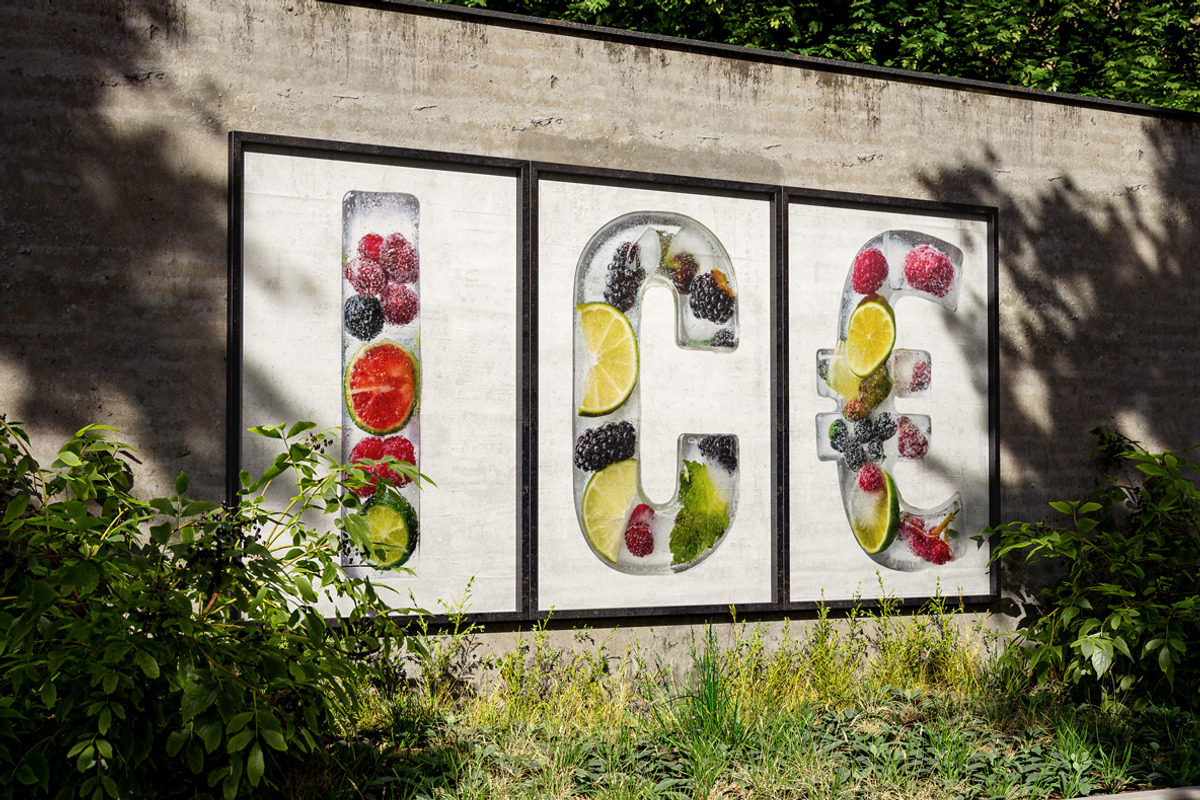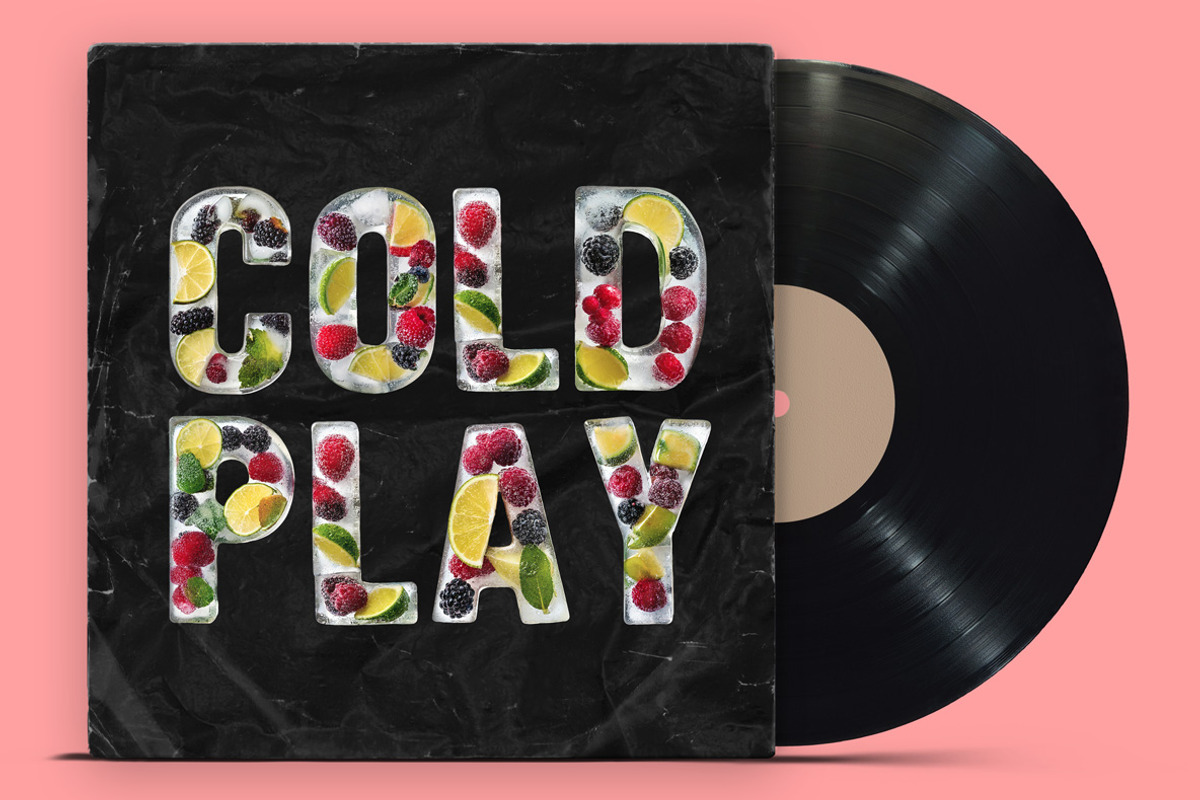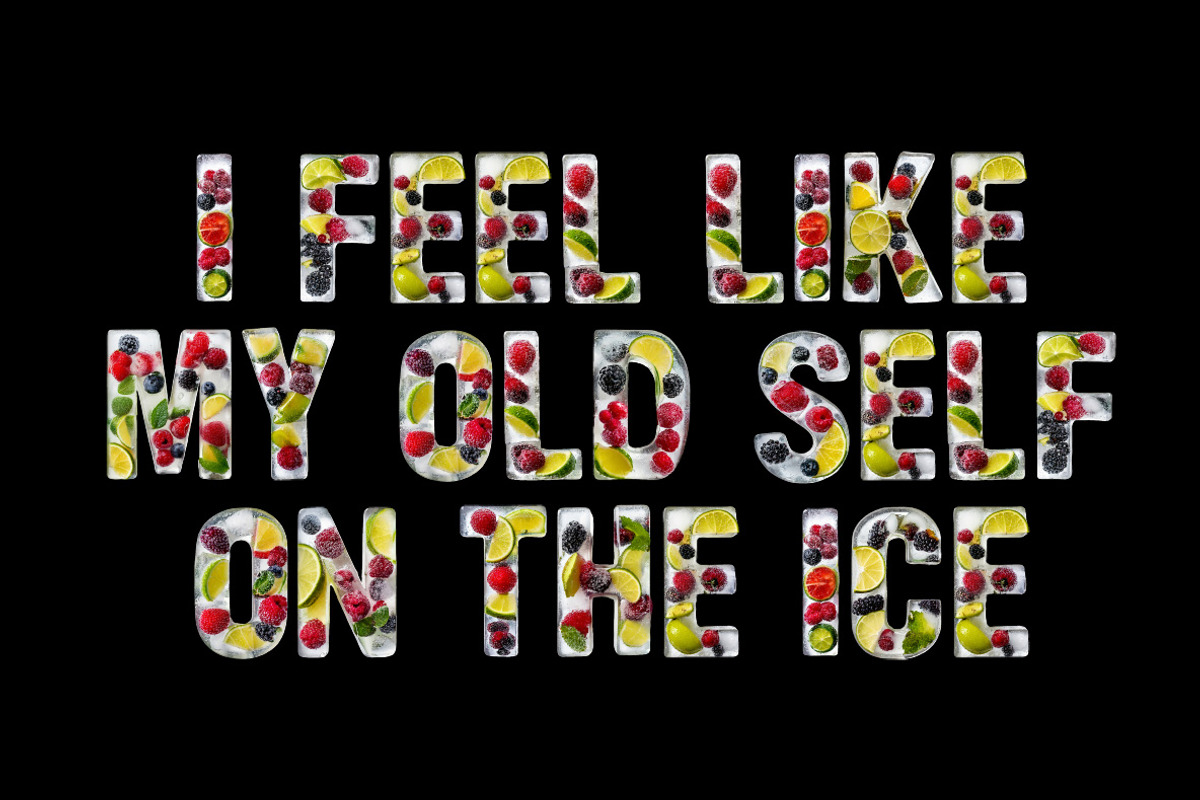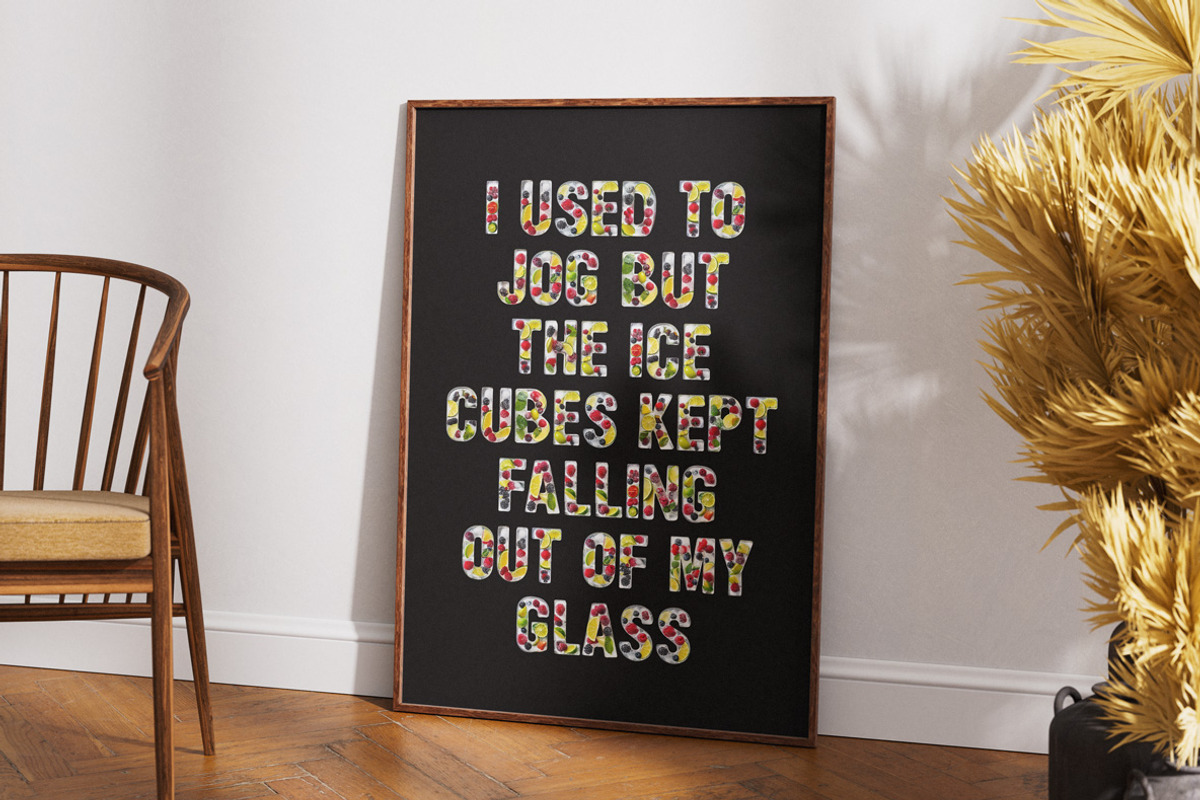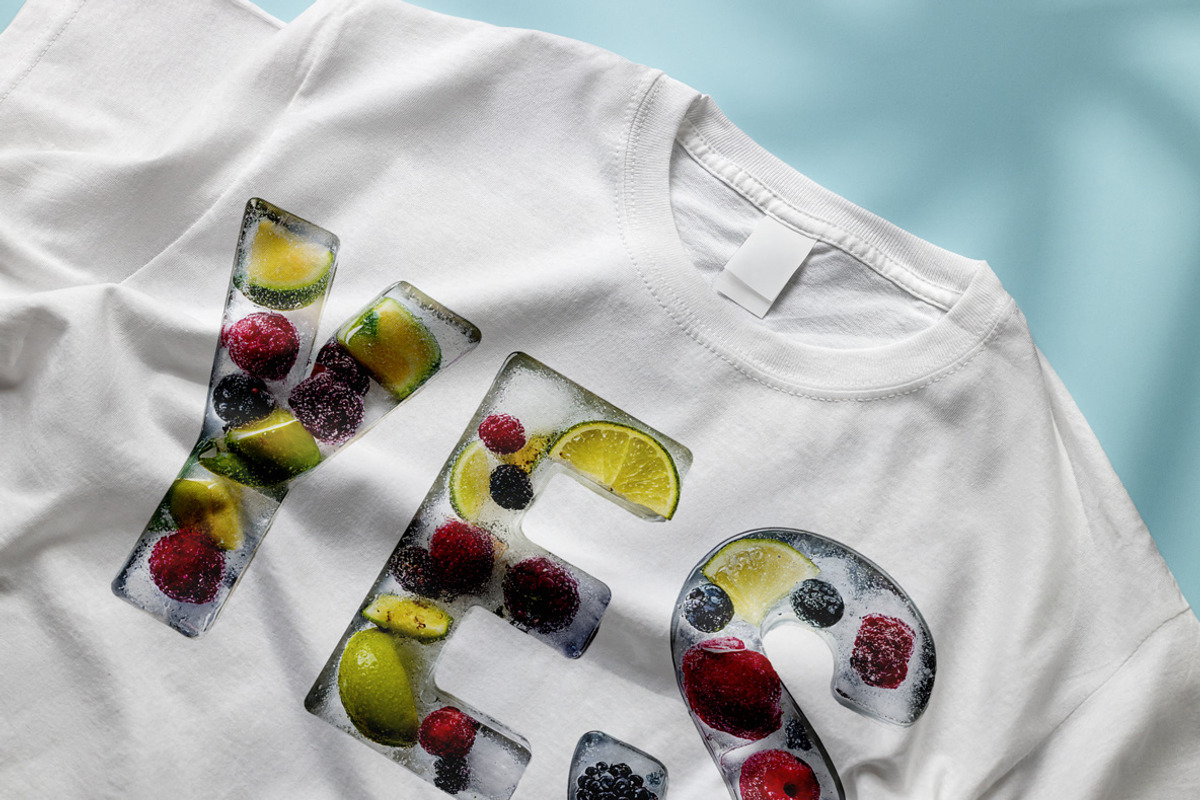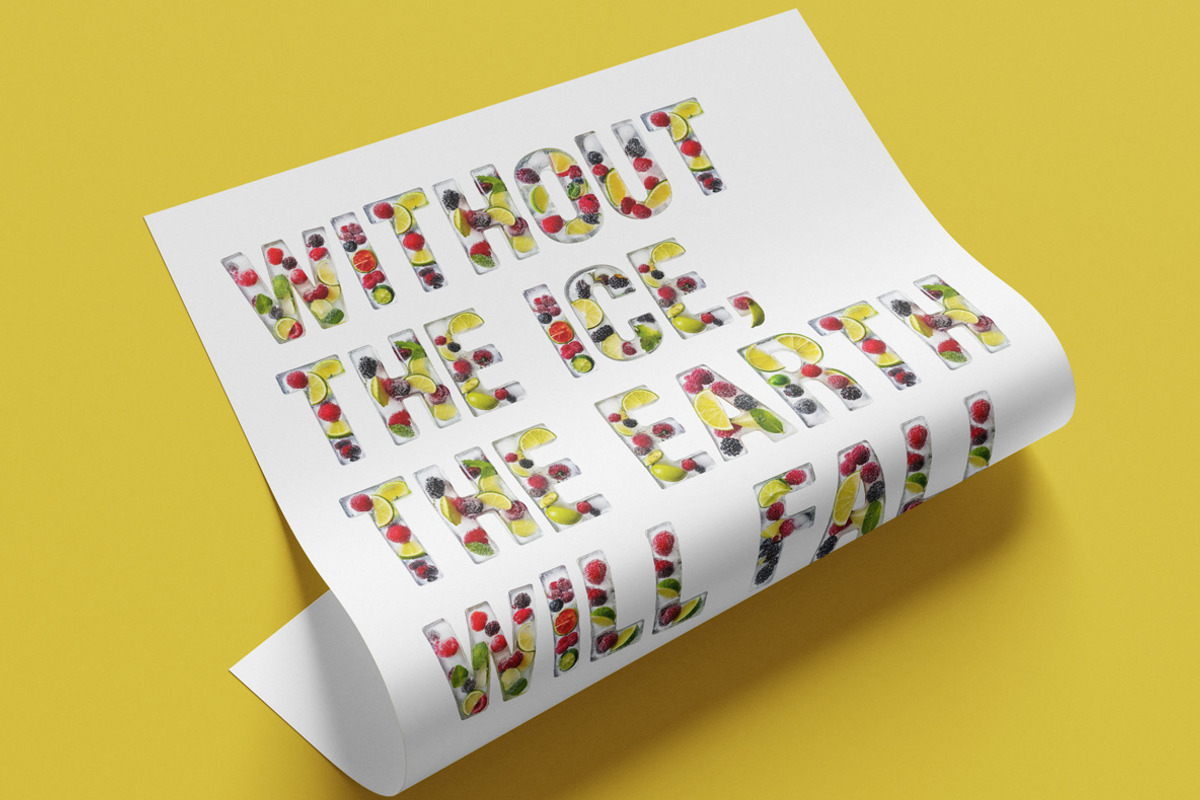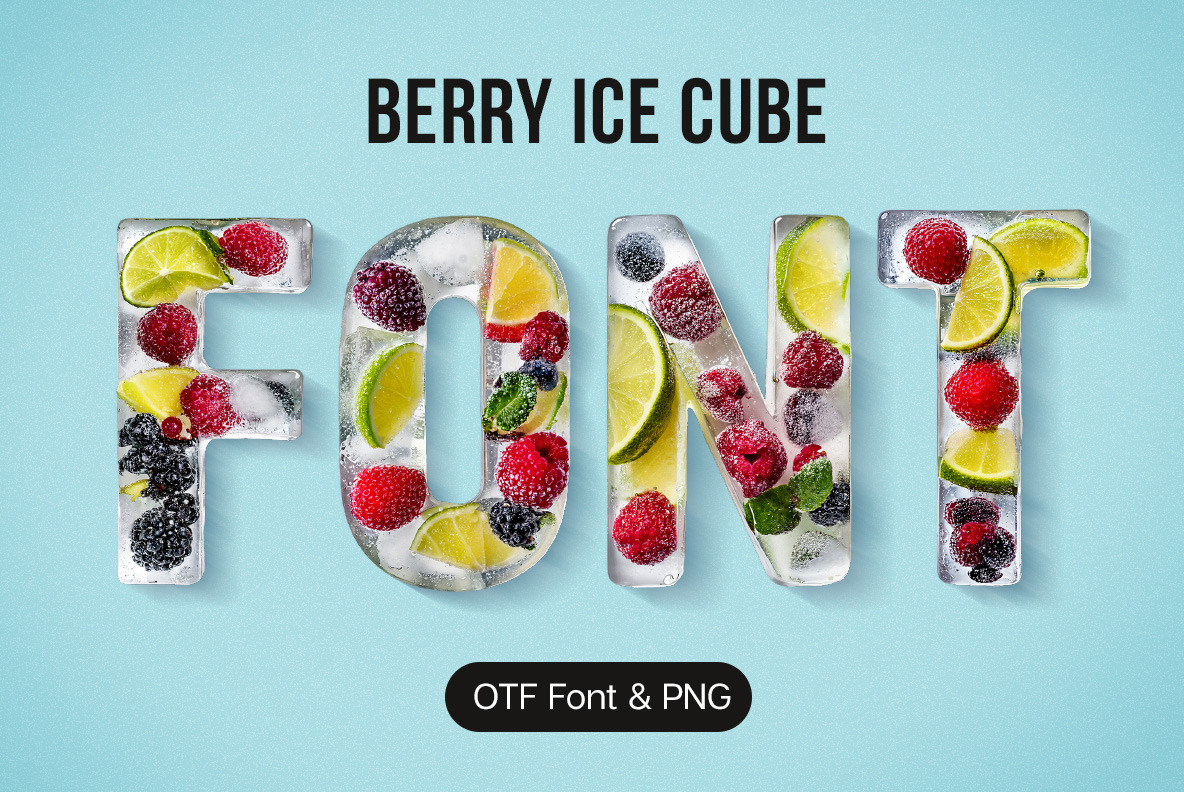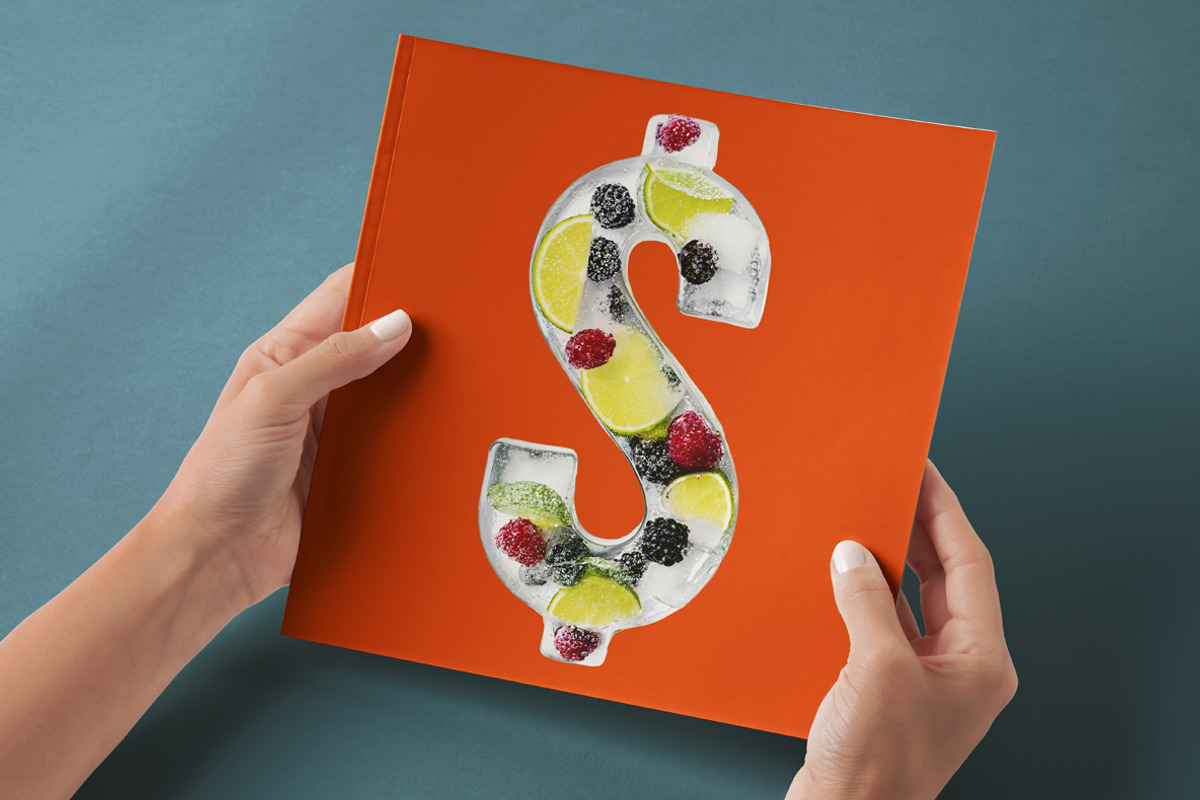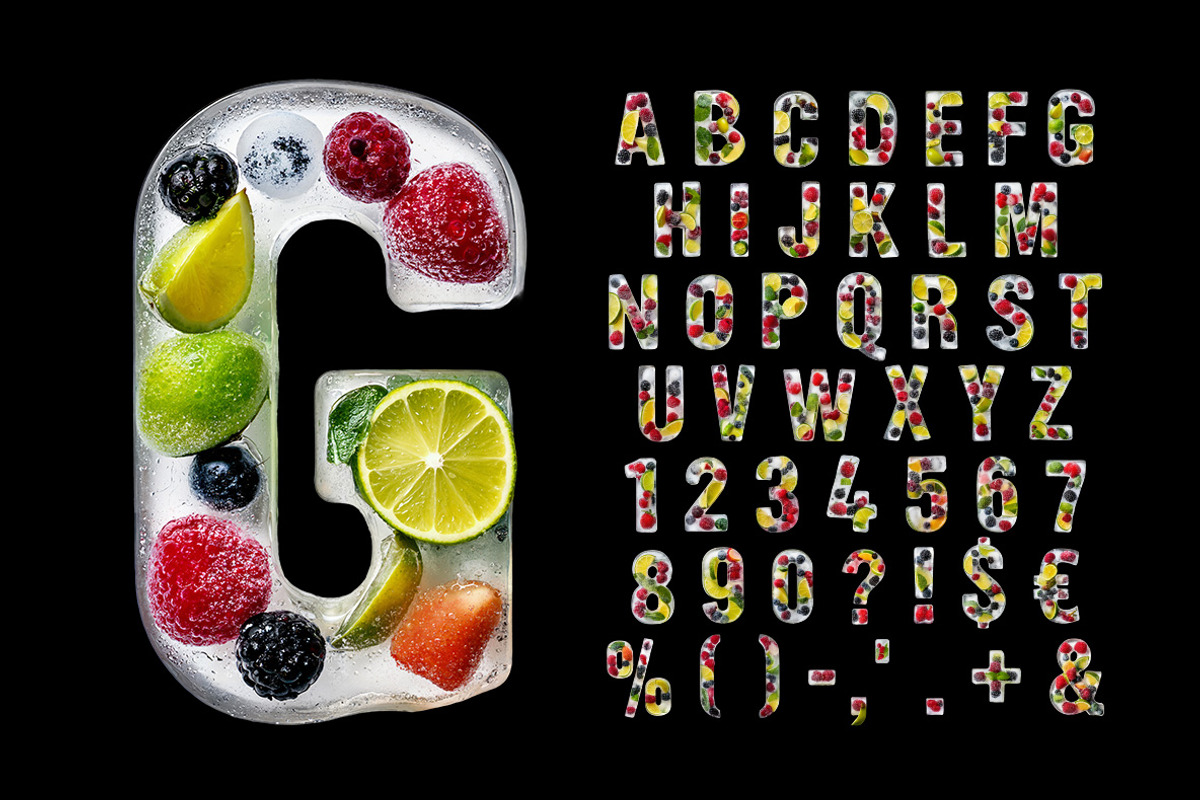
Berry Ice Cubes Font
The Berry Ice Cubes Font is a refreshing, vibrant typeface crafted from frozen berries, blending design and nature. Perfect for playful and food-related projects, this high-definition OpenType font brings a juicy, chilled look to your text, offering bold, fruity lettering compatible with color bitmap-supporting applications.
A high definition OpenType Font. Contains uppercase characters, numerals and basic punctuation. (Draw height roughly 800 pixels). All letters and glyphs that comprises this font you can see on the preview.